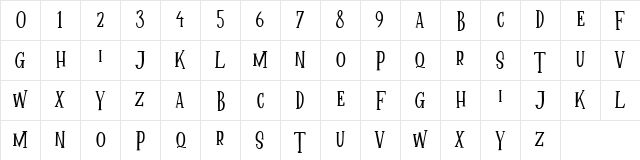
Complete Mallica Fairytale DEMO Regular glyph index. Displaying only characters natively supported by Mallica Fairytale DEMO Regular font.
Mallica Fairytale DEMO is a composed and adaptable typeface that performs quietly and consistently across a wide range of design contexts.
Who designed the Mallica Fairytale DEMO Regular font?